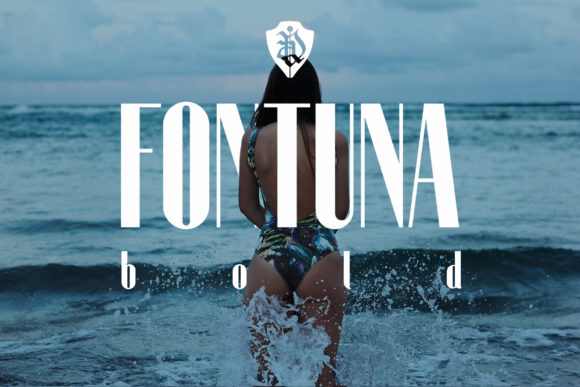
Fontuna Bold Font
Introducing Fontuna Bold, the Bold and Beautiful Sans Serif Font for the Modern Aesthete.
Fontuna Bold is more than just a font; it's a style statement, a reflection of your impeccable taste and sophistication. Expertly crafted by NREY, this elegant sans-serif font draws inspiration from the world of fashion typography, capturing the essence of both modern and vintage aesthetics.
With its bold strokes and clean lines, Fontuna Bold exudes an air of confidence and authority. It's the perfect choice for creating logos, headlines, posters, and other designs that demand attention. But don't let its bold nature fool you; Fontuna Bold also possesses a delicate charm, thanks to its carefully balanced curves and subtle details.
Imagine your designs adorned with Fontuna Bold, captivating audiences with its timeless beauty. Your words will leap off the page, commanding attention and leaving a lasting impression. Fontuna Bold is not just a font; it's a gateway to a world of elegance, style, and sophistication.
Join the ranks of discerning designers and tastemakers who have embraced Fontuna Bold as their font of choice. Let your creativity soar and create designs that resonate with your audience, leaving them spellbound by your impeccable style.